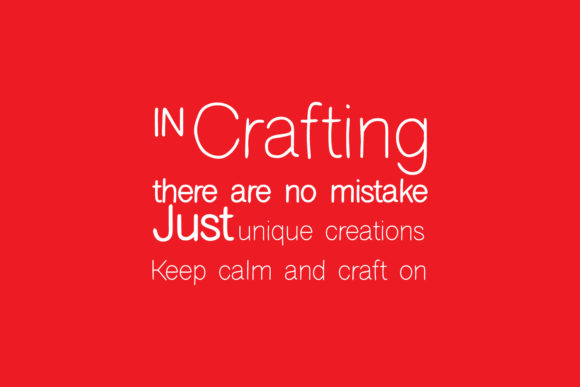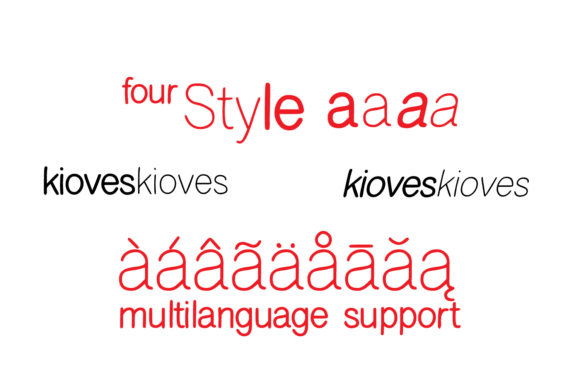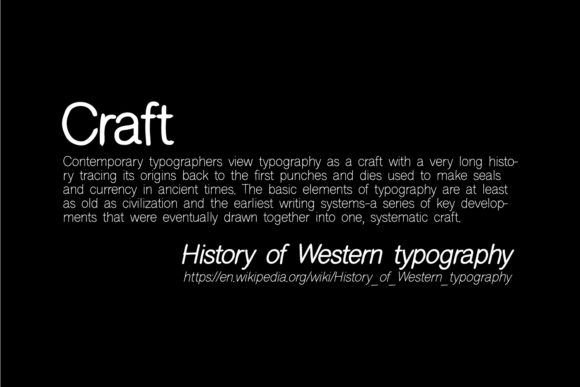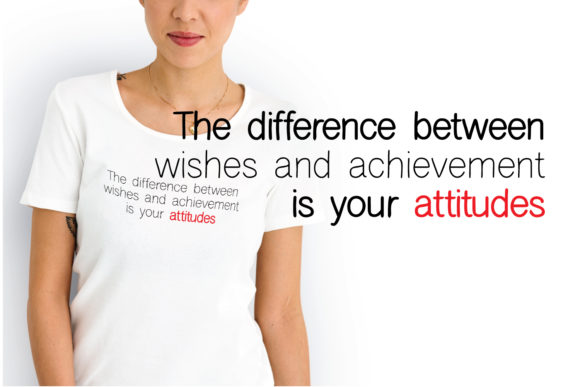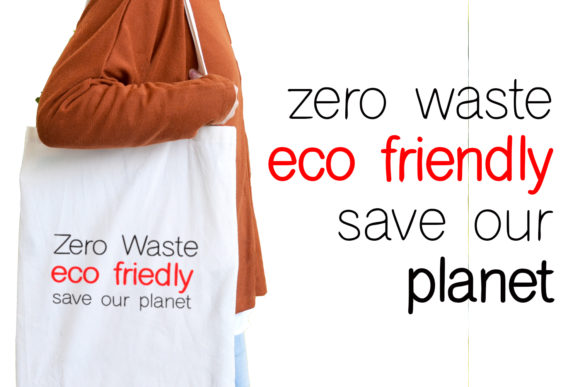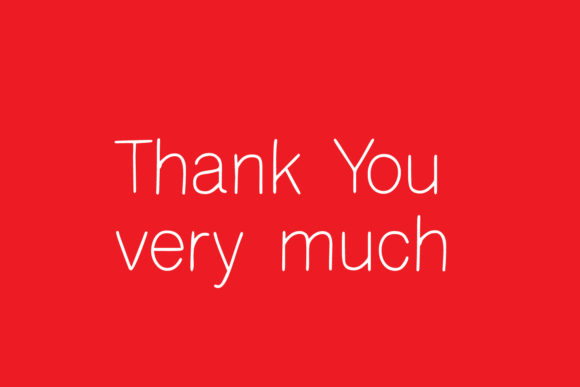
Discovering the Perfect Typeface
As designers, we’ve all been there – staring at a blank canvas, struggling to find the perfect font to bring our vision to life. It’s a moment of frustration, but also excitement, as we know that the right typeface can make all the difference. For me, that moment came when I stumbled upon the Kioves Font, a contemporary sans serif font that left me speechless.
Kioves Font is more than just a pretty face – it’s a carefully crafted typeface designed to elevate any design. With its neat and beautiful arrangement of letters, this font is perfect for both formal and non-formal designs, making it a valuable addition to any designer’s toolkit. Whether you’re working on a corporate logo, a wedding invitation, or a social media campaign, the Kioves Font is sure to impress.
Kioves Font Key Features
- Font Family: Kioves is a unique, modern sans-serif font with a distinctive x-height and vertical axis.
- Unique Characteristics: Kioves features a unique blend of geometric and organic elements, making it stand out from other sans-serif fonts.
Kioves Font Review
I recently had the chance to work with the Kioves Font, and I must say it’s a unique and intriguing typeface. ✨ One of the things that works well is its sleek and modern aesthetic. The font’s clean lines and geometric shapes make it perfect for minimalist designs and cutting-edge branding. It’s also highly legible, making it a great choice for body text.
- ✨ Highly legible, making it suitable for body text
- ✨ Sleek and modern aesthetic, perfect for minimalist designs and cutting-edge branding
- ✨ Geometric shapes add a touch of sophistication
However, I did encounter some limitations. ⚠️ The font’s lack of versatility is a major drawback. It’s not suitable for traditional or classic designs, and it may not appeal to audiences who prefer a more timeless look. Additionally, the font’s bold weight is a bit too aggressive, which can be overwhelming in certain contexts.
- ⚠️ Limited versatility, not suitable for traditional or classic designs
- ⚠️ Bold weight can be overwhelming in certain contexts
- ⚠️ May not appeal to audiences who prefer a more timeless look
Overall, I would give the Kioves Font 3.5 out of 5 stars. While it’s a great choice for modern and minimalist designs, its limitations hold it back from being a truly exceptional font. With a bit more versatility and a more balanced bold weight, the Kioves Font could be a top contender in the design world.
For optimal results, use Kioves Font for titles and headings to create a visually appealing contrast with body text.
For best results, use Kioves Font for typography-heavy designs, such as logos or posters.
For optimal results, use Kioves Font for headings and titles to create a clear visual hierarchy.
Kioves Font is suitable for:
- Typography-heavy designs, such as logos and posters.
- Creating a visually appealing contrast between titles and body text.
- Adding a unique touch to presentations and documents.
Remember to experiment with different font sizes, colors, and styles to get the most out of Kioves Font.